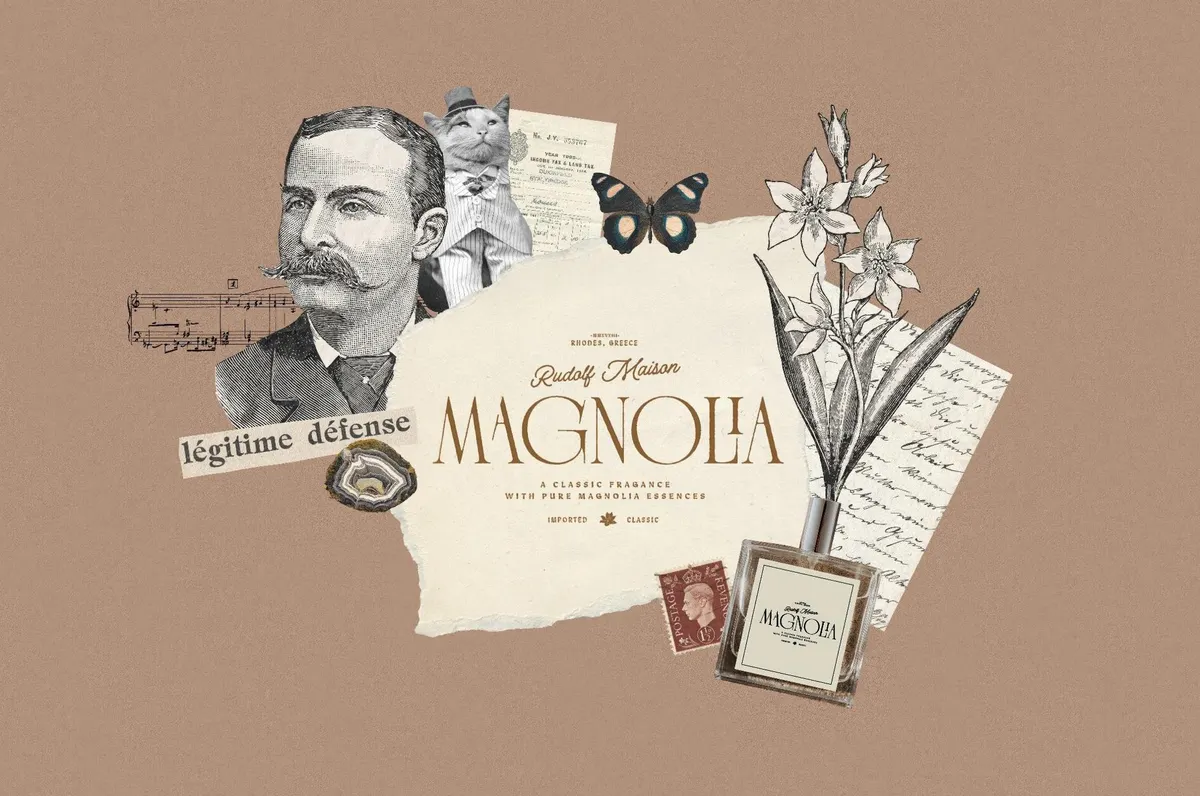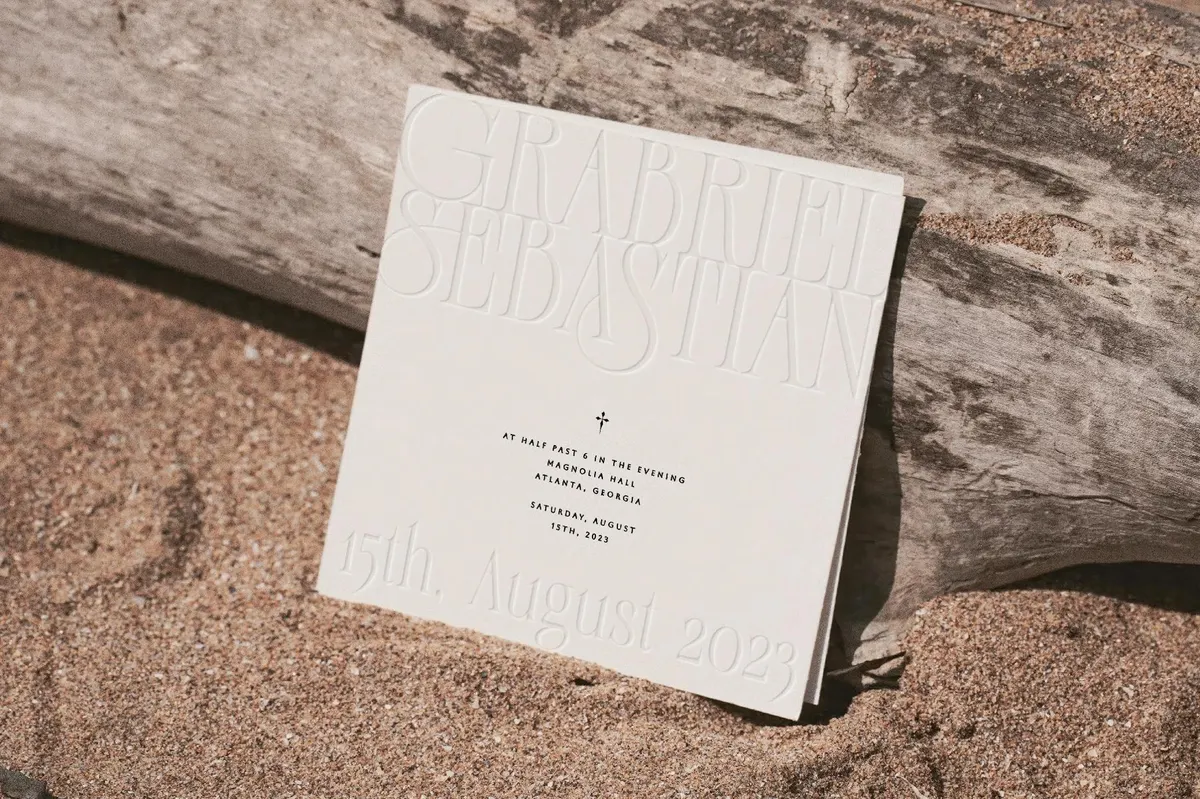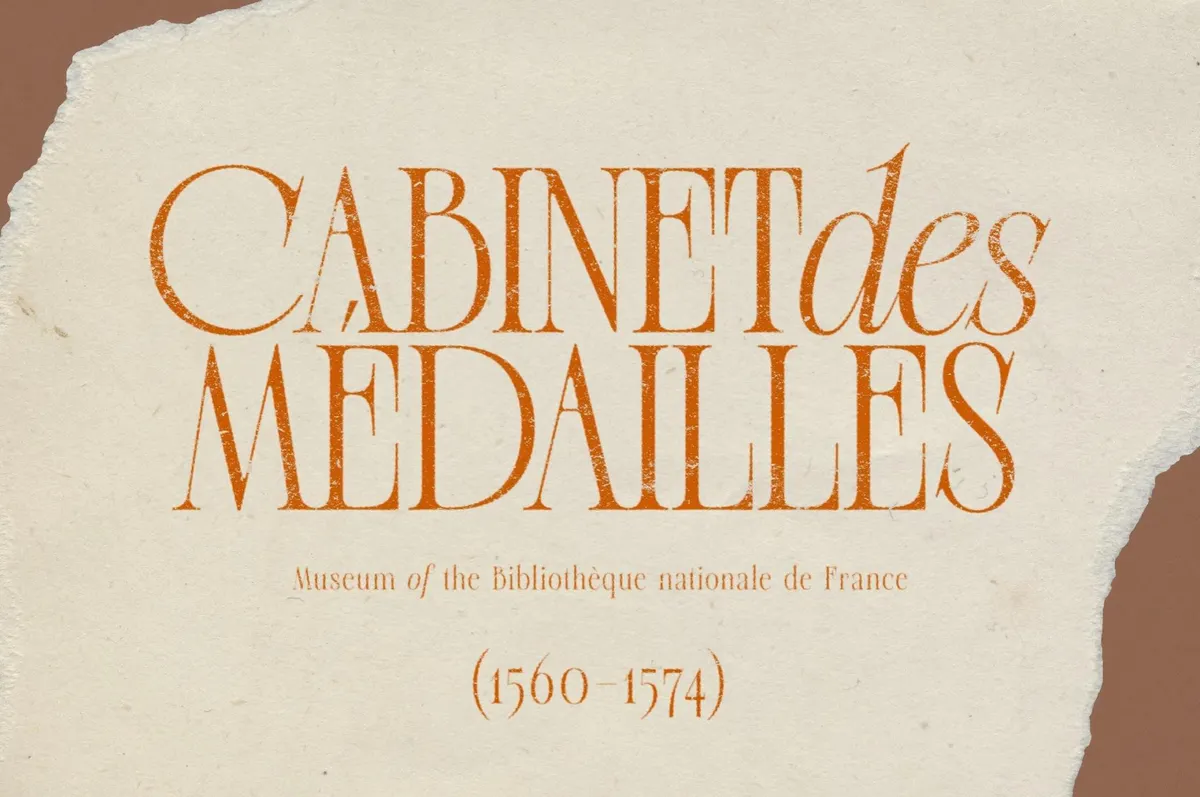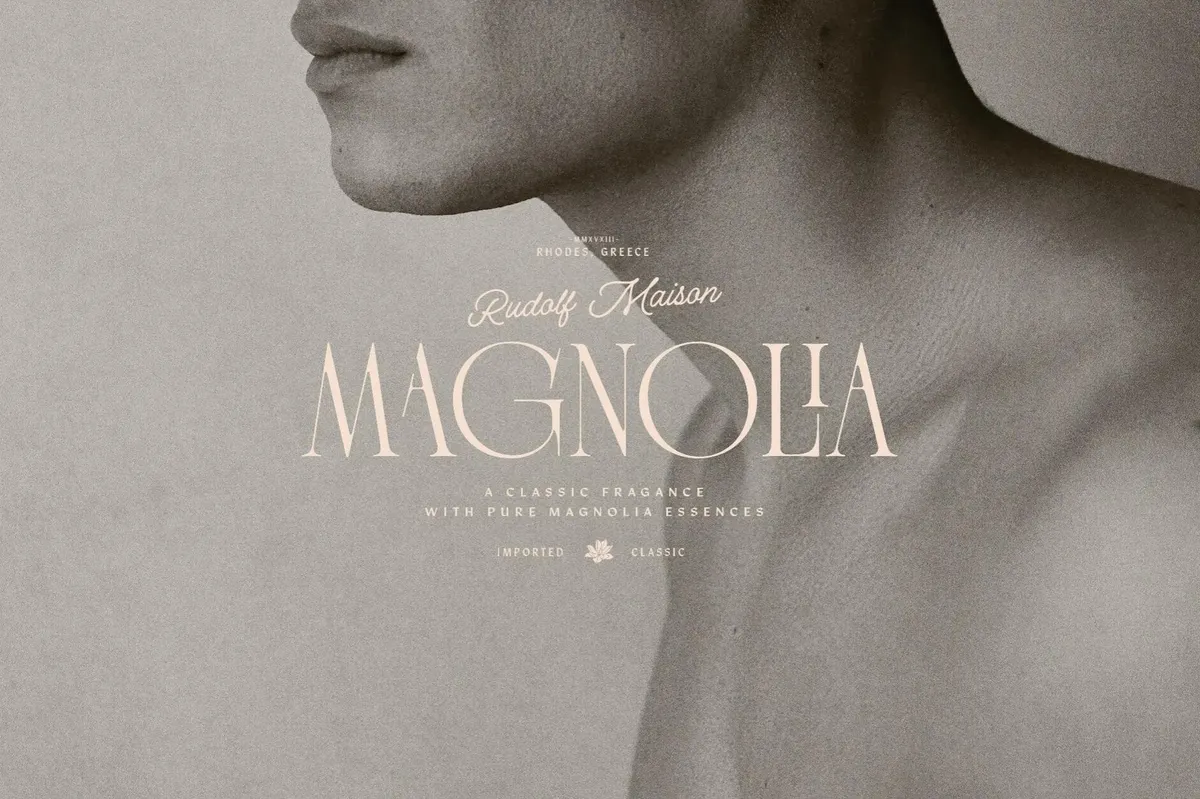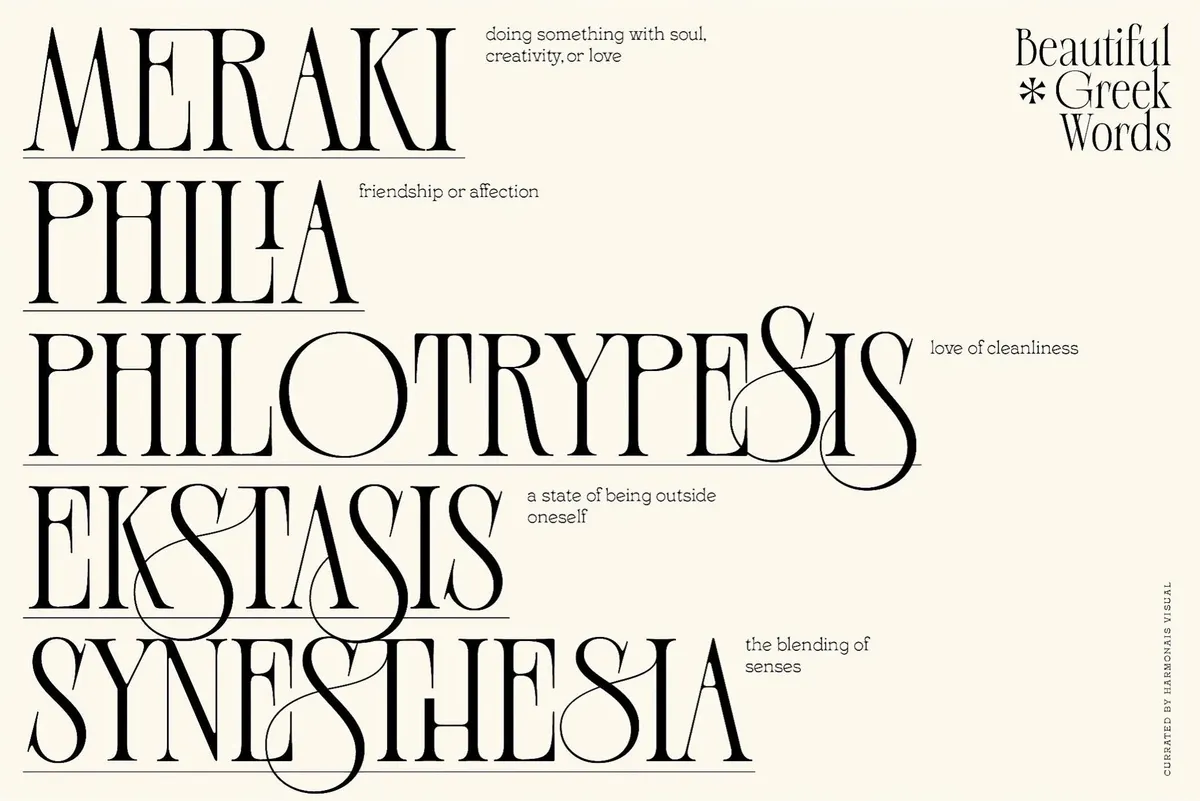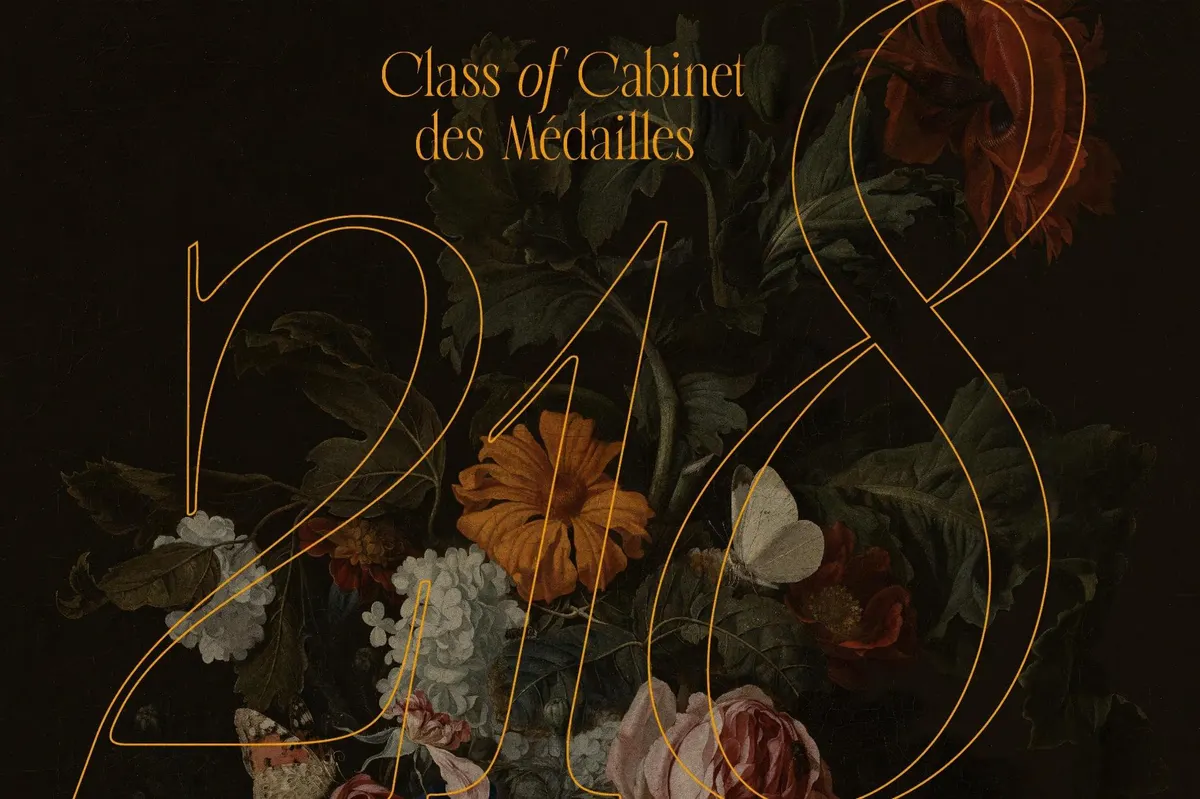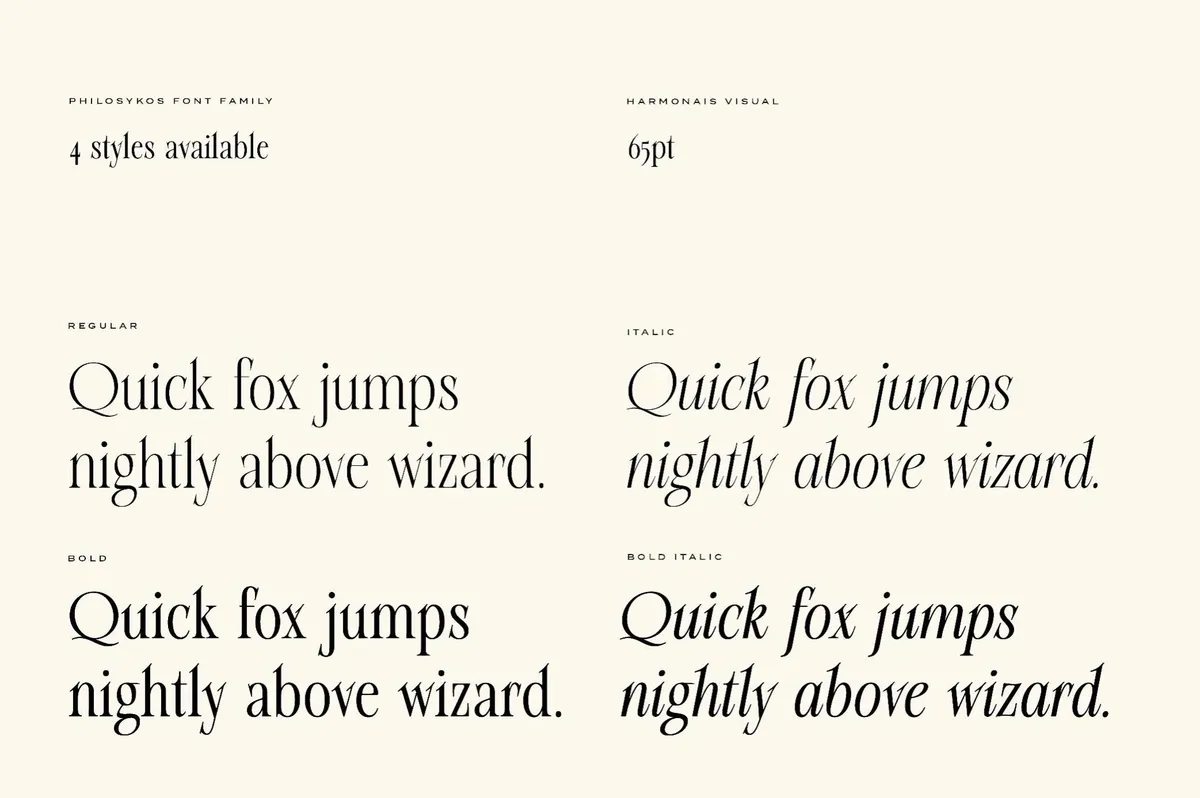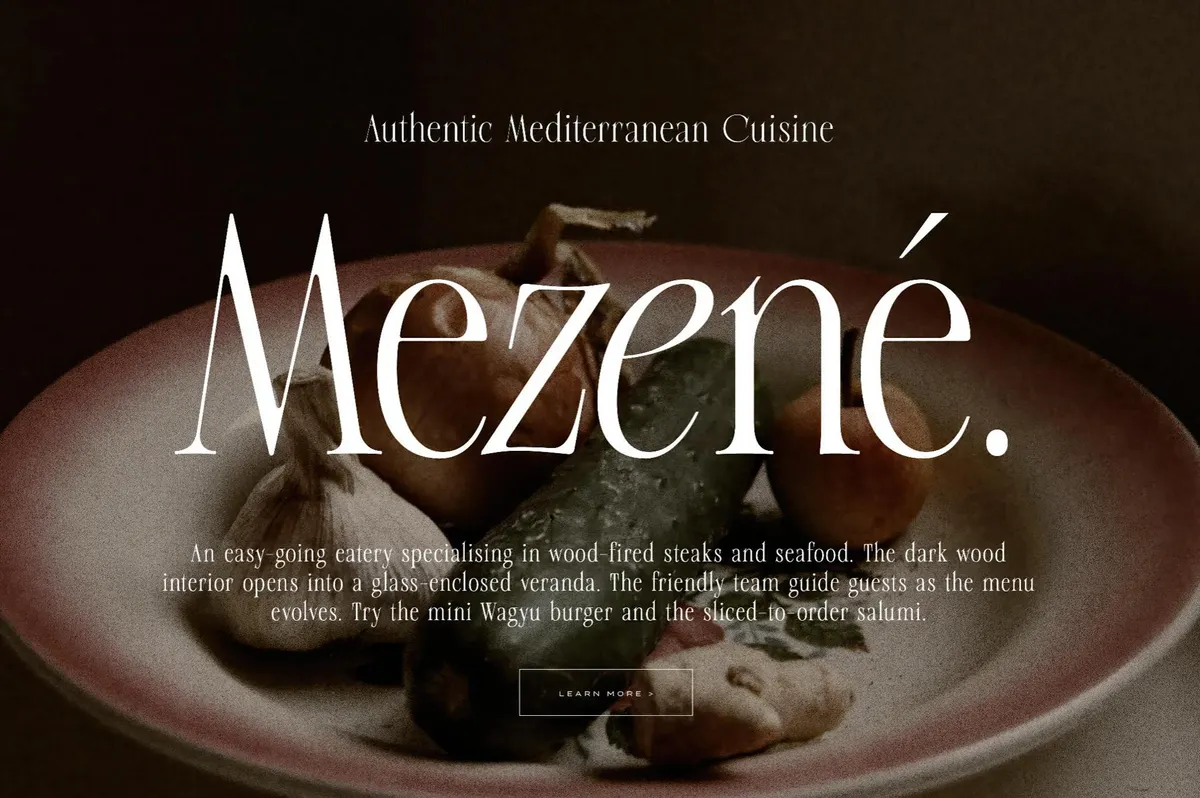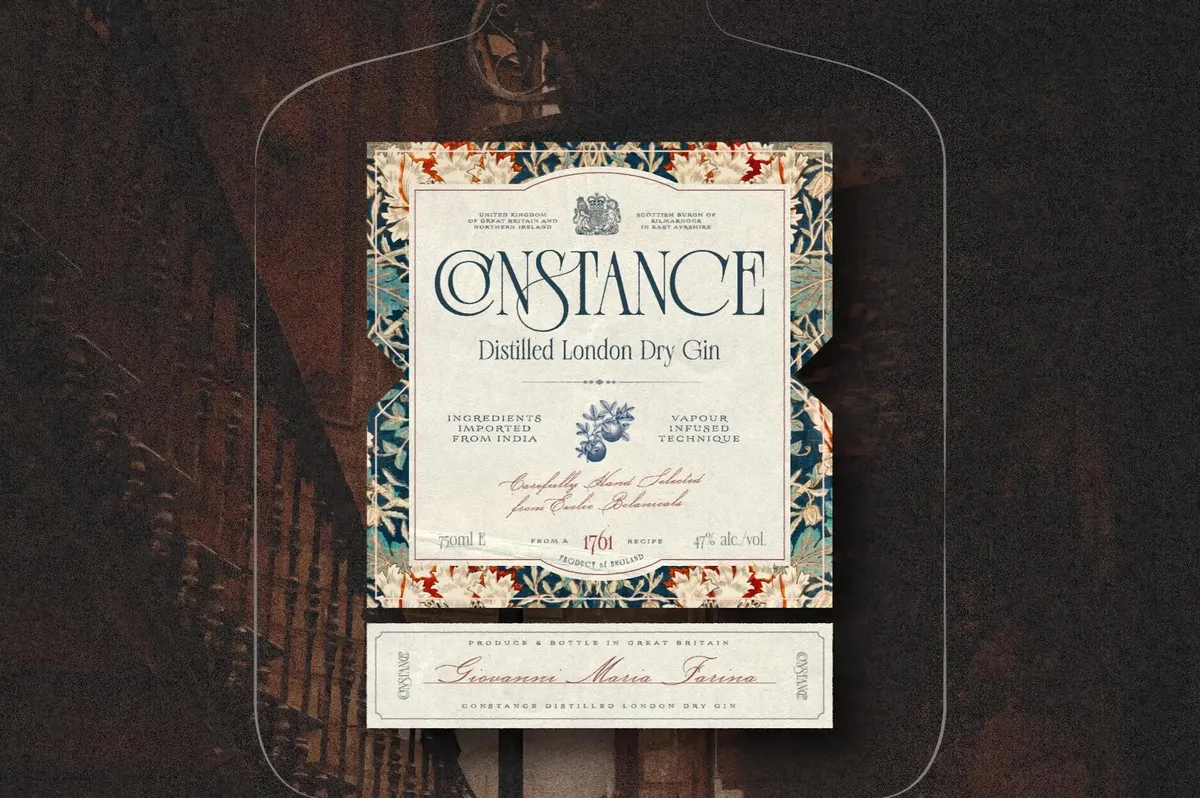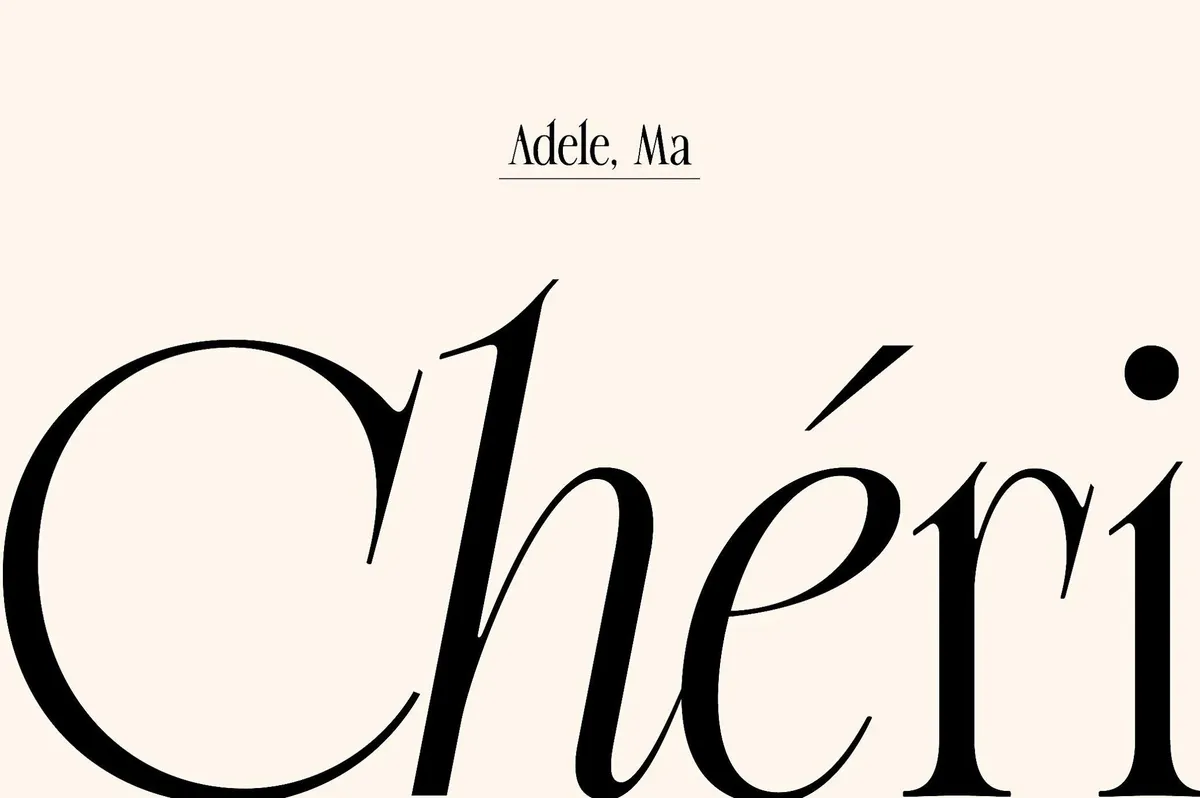
Philosykos — Fancy Classic Serif
Think of Philosykos as a typeface that whispers poetry but looks like it came from a royal decree. This editorial serif typeface comes with a distinctly artistic and decorative twist. Its tall, narrow proportions are typical of fashion and perfume editorial styles. The dramatic contrast between thick and thin strokes gives it a refined and upscale tone. Altogether, these features make it feel influenced by Art Deco and Neoclassical design, yet still grounded in a contemporary context.
Philosykos provides four styles (Regular, Italic, Bold, and Bold Italic) and an extended set of glyphs, including 80 ligature choices and multilingual support. It is perfect for perfume packaging, book covers, fashion editorials, art galleries, or high-end product identity.